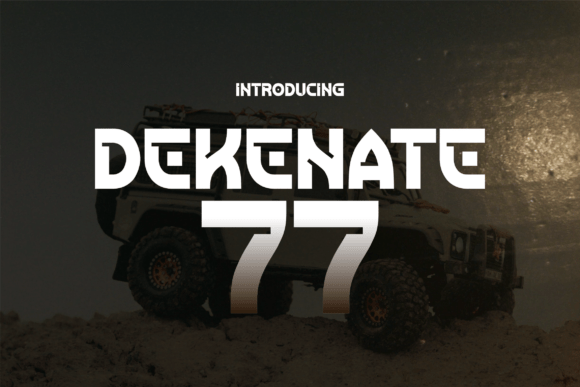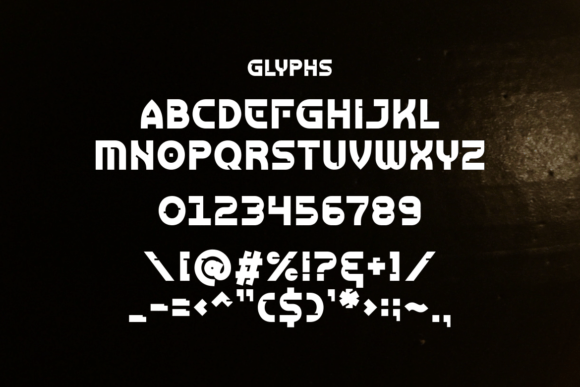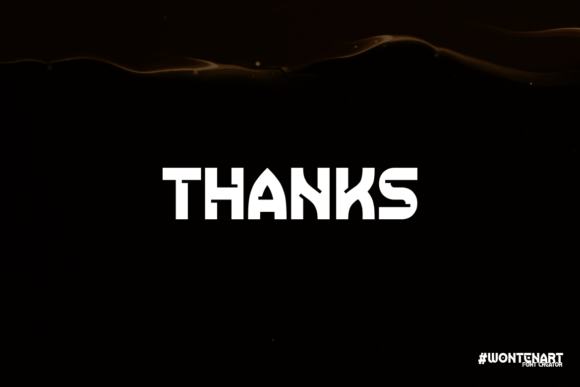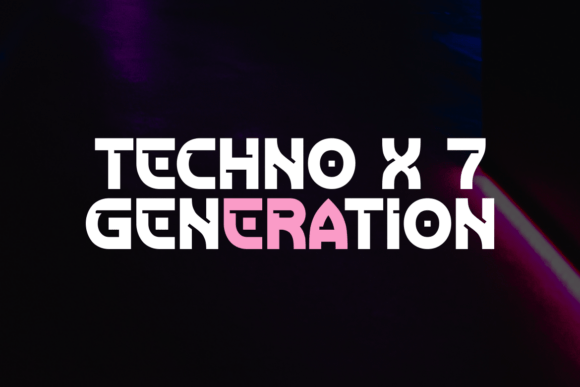
Unleashing Bold Creativity: The Dekenate 77 Font
Have you ever been browsing through a vintage market, and suddenly, the perfect typography comes into view? The mix of old-school charm and modern flair in that one font sparks an idea that refuses to fade away. For designers, this is the moment when creativity meets inspiration.
Enter Dekenate 77 Font, a bold sans-serif display font that embodies the essence of retro-modern design. Its striking features, including robust letterforms and razor-sharp edges, make it a versatile tool for any design project. Whether you’re crafting a logo, designing apparel, or creating eye-catching posters, Dekenate 77 Font is the perfect addition to your toolkit. With its commanding presence, it’s sure to elevate your designs and leave a lasting impression.
For designers, Dekenate 77 Font offers a unique opportunity to add a touch of sophistication and playfulness to their work. Its unparalleled versatility makes it an invaluable asset for any creative project, ensuring that your designs stand out from the crowd.
Dekenate 77 Font Key Features
- Font Family: Dekenate 77
- Unique Characteristic: Dekenate 77 features a unique blend of modern and vintage elements, making it ideal for creating a sophisticated and elegant look
Dekenate 77 Font Review
As a designer, I had the chance to work with Dekenate 77 Font, and here’s my honest review.
- The font’s unique blend of modern and vintage elements is quite captivating.
- The wide range of weights (up to 7) provides ample flexibility for various design applications.
- The font’s readability is excellent, making it suitable for both digital and print media.
- The font’s complexity might make it challenging for some designers to use, especially those new to font manipulation.
- The font’s limited language support might be a concern for designers working on multilingual projects.
- The font’s visual appeal might not be for everyone, as it’s quite distinctive and not suitable for all design styles.
Overall, Dekenate 77 Font is a great option for designers looking for a unique, high-quality font with plenty of customization options. While it may not be perfect, its strengths far outweigh its limitations, making it a solid addition to any design arsenal.
The Dekenate 77 Font is ideal for creating elegant and sophisticated designs. Use it for:
- Photography captions and quotes
- Any design project that requires a touch of elegance and sophistication.
Alternatives to Dekenate 77 Font
Playfair Display Font is a luxurious and elegant serif font perfect for high-end designs, such as luxury brands, fashion magazines, and special occasion invitations. It features intricate details and ornaments, making it ideal for creating a sense of sophistication and refinement.
Comparison to Dekenate 77 Font: While Dekenate 77 Font has a similar elegant feel, Playfair Display Font is more ornate and luxurious, making it a better choice for high-end designs. Dekenate 77 Font is more versatile and can be used for a wider range of applications.
Carolyna Pro Font is a modern and sophisticated serif font designed for use in luxury brands, high-end magazines, and premium packaging. It features a clean and elegant design with a touch of sophistication, making it perfect for creating a sense of refinement and elegance.
Comparison to Dekenate 77 Font: Carolyna Pro Font has a more modern and sleek design compared to Dekenate 77 Font, making it a better choice for contemporary designs. Dekenate 77 Font has a more classic and timeless feel, making it a better choice for traditional designs.